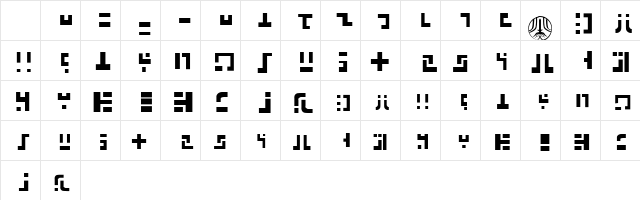
Complete Rylodian Normal glyph index. Displaying only characters natively supported by Rylodian Normal font.
Rylodian is a composed and adaptable typeface that performs quietly and consistently across a wide range of design contexts.